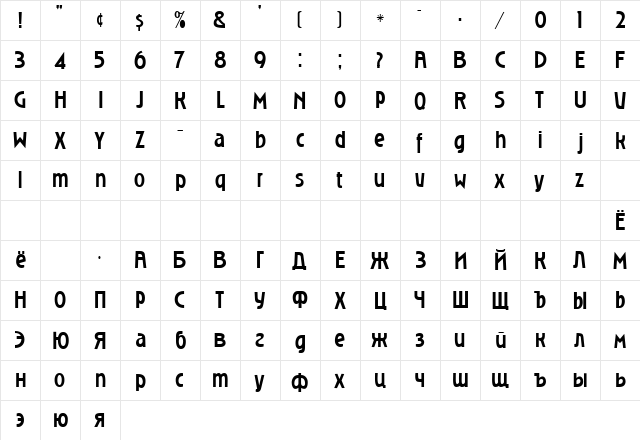
DG_RoslynGothic Normal
Design Context for DG_RoslynGothic Typeface
DG_RoslynGothic takes a clean, functional approach — its unadorned letterforms prioritise legibility and work reliably across screen and print environments.
Font Pairing: Works well alongside a characterful serif or display font that can carry the expressive load while DG_RoslynGothic handles the functional copy.
Pro Tip: Pair DG_RoslynGothic with a display or serif font for headlines — its neutral character makes it an excellent supporting player in complex typographic systems.